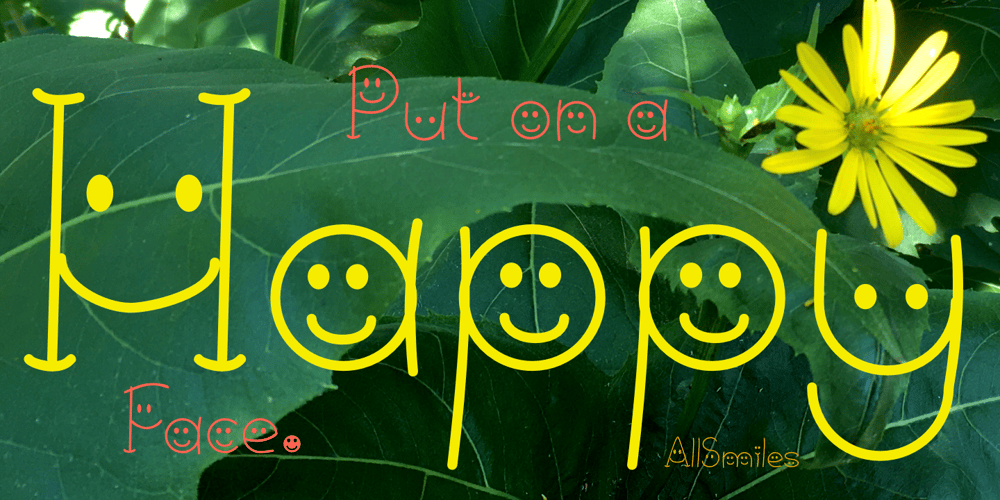
All Smiles Font Family was designed by Robert Schenk and published by Ingrimayne Type. All Smiles contains 1 styles and family package options. AllSmiles is a sunny little face in which all the letters smile at you. It can be used in notes and cards of congratulation or in celebrating good-news announcements.In the update of 2011, emoticons were added in the appropriate unicode slots (unicode 1F601 to 1F640 slots). For the sad version, see BringInTheFrowns, and if you only want to proclaim a little joyfulness, you can temper the feelings with a plain version of the typeface, FebDrei.